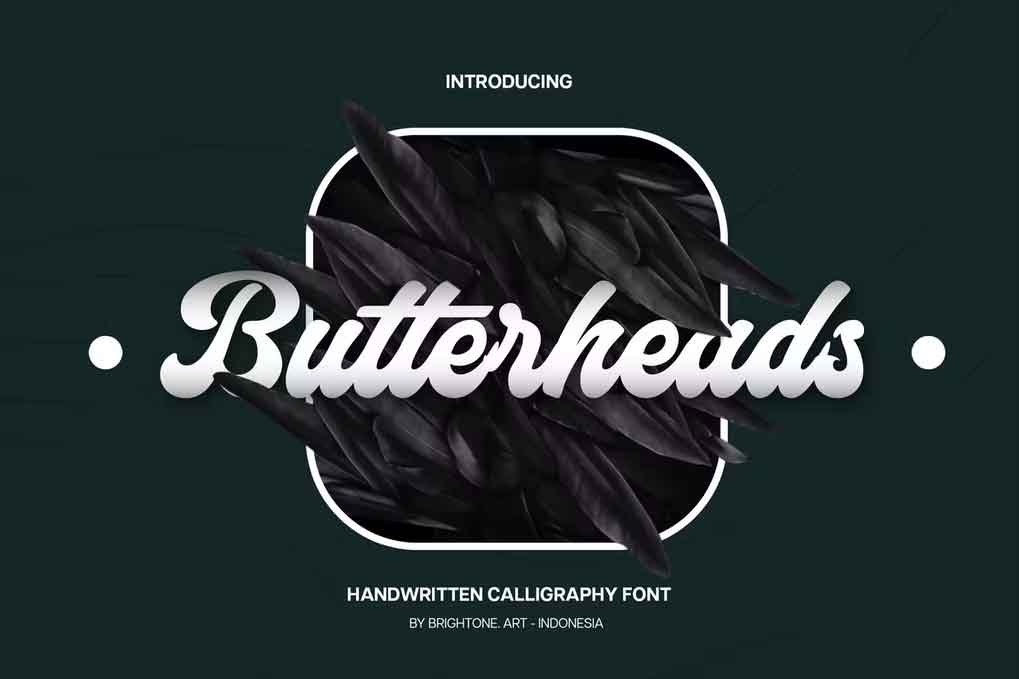
Butterheads Handwritten Calligraphy Font
Butterheads is handwritten script font adapt from classic and modern script calligraphy font style includes: Handwritten script calligraphy font style for your logo lett…
Butterheads
is handwritten script font adapt from classic and modern script calligraphy font style includes:
Handwritten script calligraphy font style for your logo lettering, logo, label, packaging, sticker, branding and many more
Where Butterheads Handwritten Calligraphy Font works best
Butterheads Handwritten Calligraphy Font brings a personal, handwritten warmth to invitations, menus and place cards.
Craft brands — coffee, cosmetics, bakery — use scripts like Butterheads Handwritten Calligraphy Font for signature-style logos and labels.
Pair Butterheads Handwritten Calligraphy Font with a plain sans for quotes, stories and Pinterest pins that feel handmade.
What is Butterheads Handwritten Calligraphy Font good for?
Butterheads Handwritten Calligraphy Font is a Script And Handwritten typeface tagged Branding, Calligraphy, Classic, Handwritten. It works well for headlines, logos, posters, social media graphics and branding projects that need a distinctive script and handwritten look.